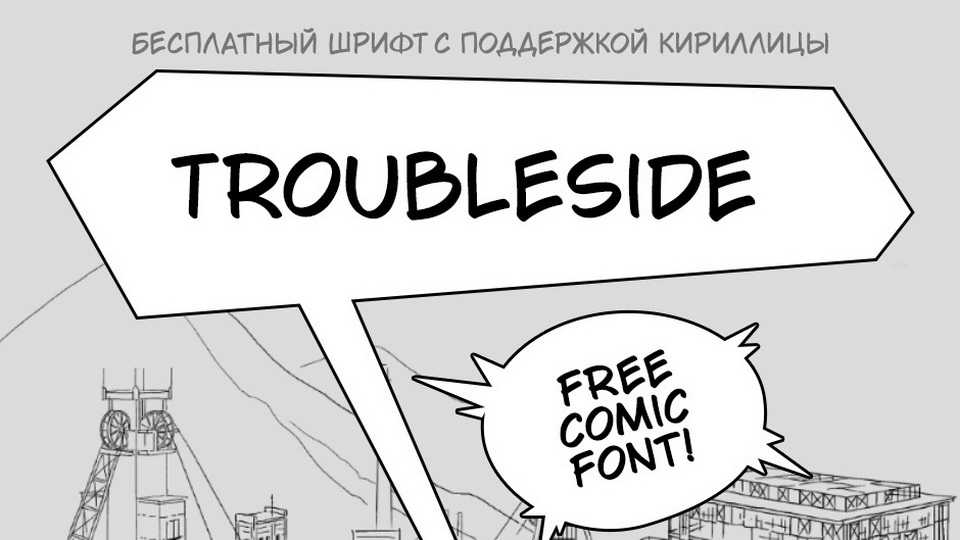
Download TroubleSide font, a hand lettered comic typeface inspired by Comicraft fonts and classic American comic book aesthetics.
Designer: Koroletov